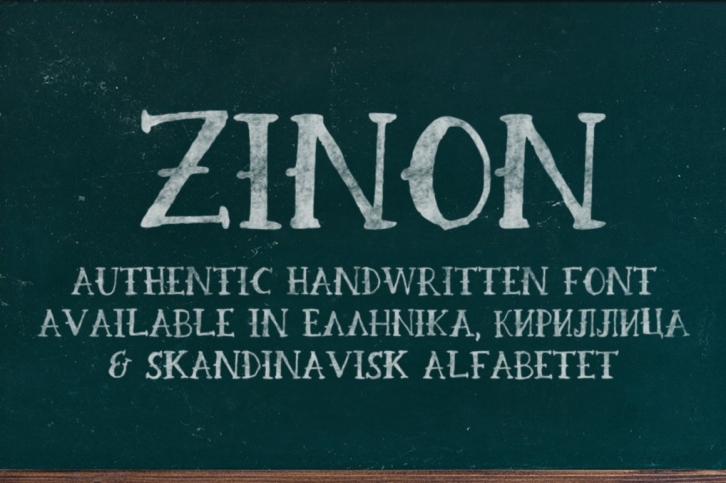
Zinon Handwritten Font Download
Zinon Handwritten is a beautiful font that was designed by Christos Chiotis. It's a great choice for designers and creatives who need such a font. It was released on March 1, 2016 and the file size is 20.39 MB. Zinon Handwritten may give a more youthful, expressive and casual look to your project. It is a very beautiful, refined, elegant, and high-quality font.